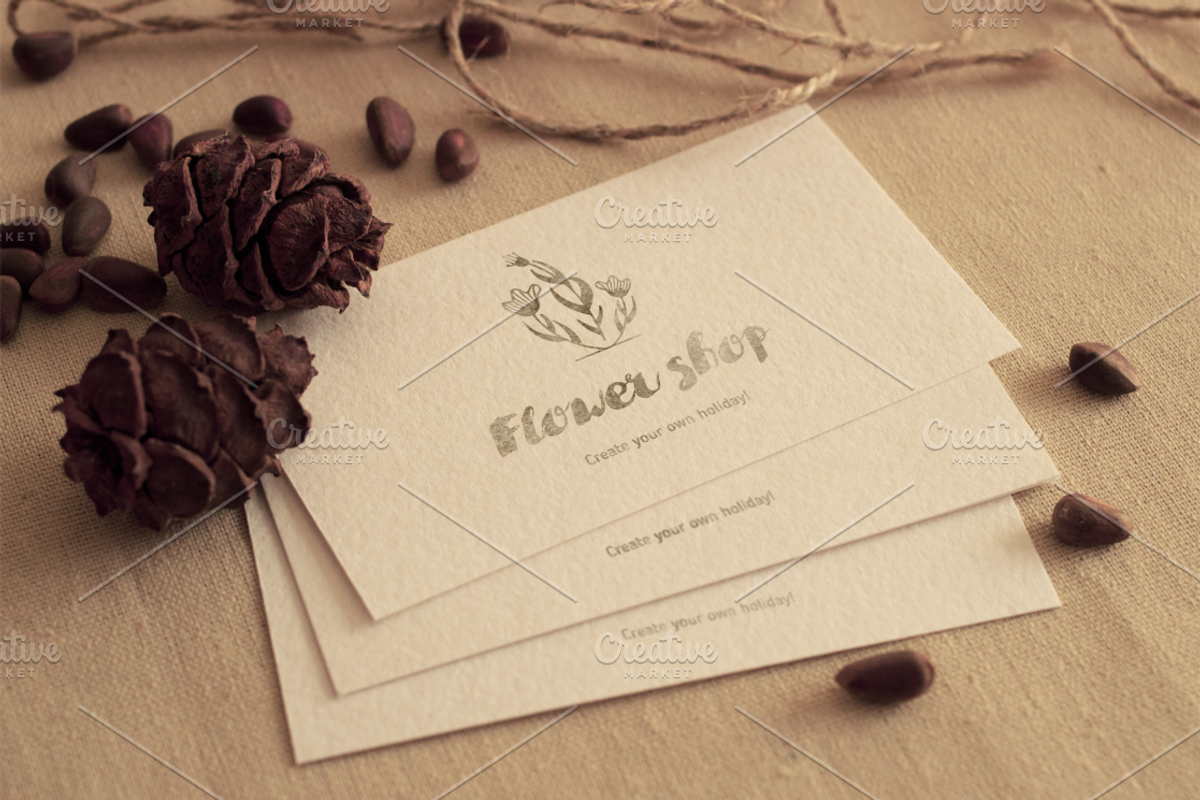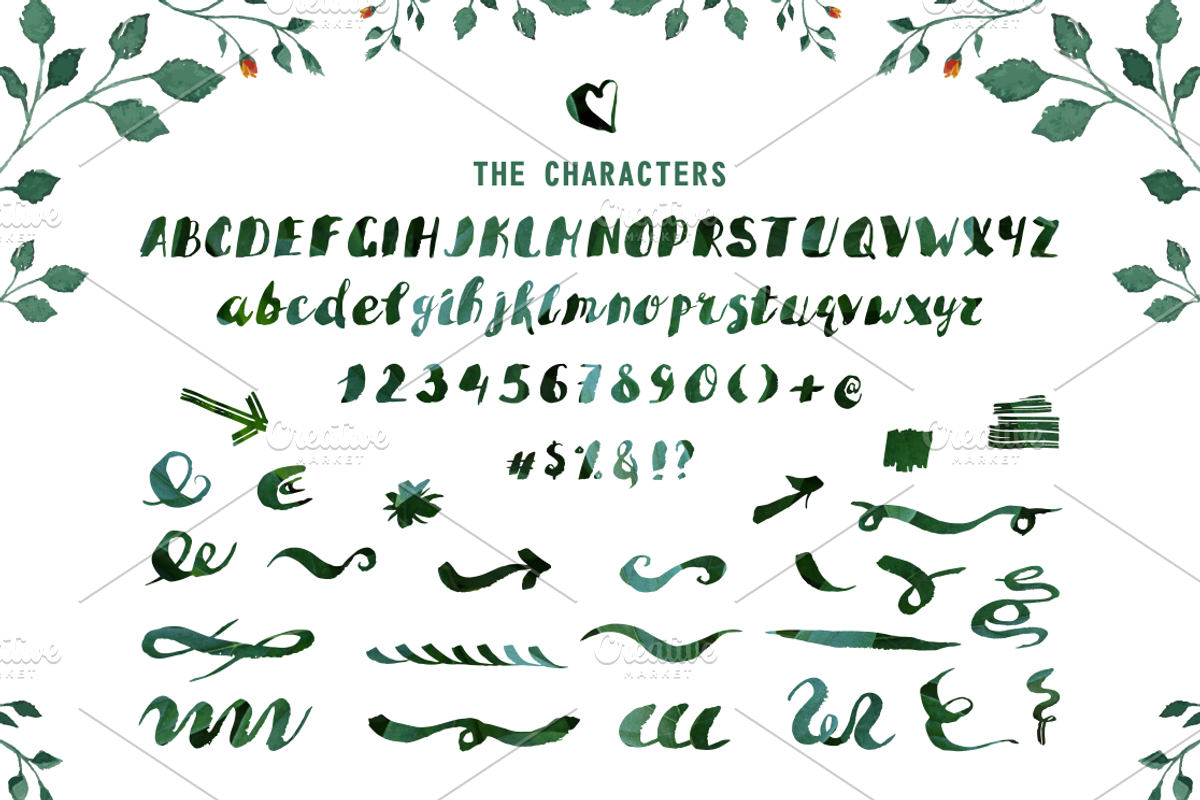
BROAD-BRUSH Font
BROAD-BRUSH Font by OlgaAlekseenko is a font selected for branding, posters, packaging, typography.
Why BROAD-BRUSH Font is worth a look
BROAD-BRUSH Font by OlgaAlekseenko fits naturally into Branding, posters, packaging, typography.